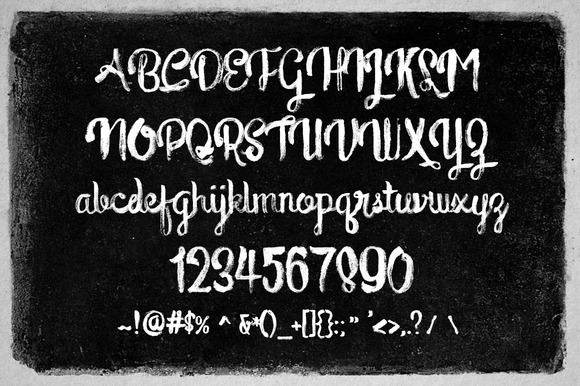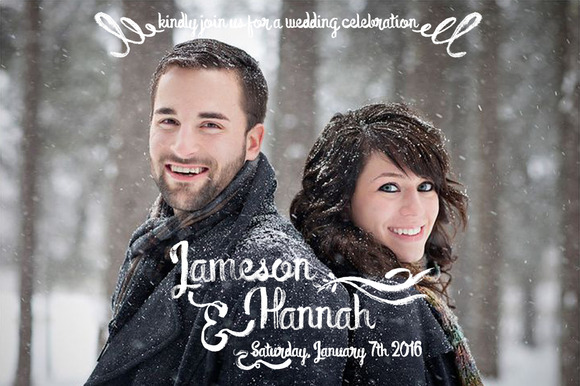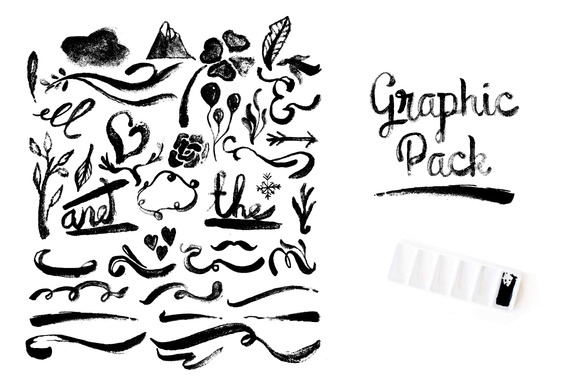
Galahad Typeface + Graphic Pack
Galahad is a 100% hand drawn typeface using ink and brush. Brought to give you a professional looks for you decorative designs.The typeface is great for invitations, logos, quotes, headings, signature, t-shirt, letterhead, signage, labels, news, posters, etc.